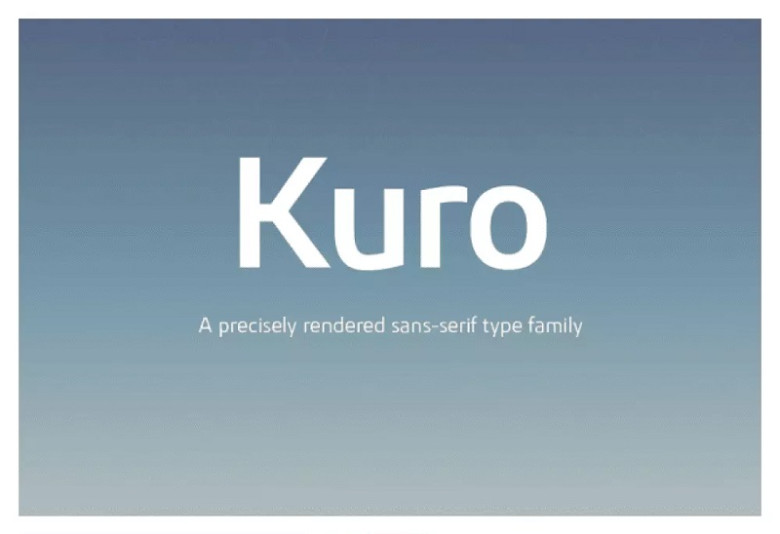
Kuro Font Family
Kuro is a precisely rendered sans serif type family. Modern geometric shapes combined with the addition of subtle detailing, make for an inclusive and straightforward design that can be used in a range of ways.
The lighter weights provide a contemporary feel to text, while the heavier weights give text distinction in brand identification, and packaging. Details accommodate eight weights, 450 characters, manually edited kerning and opentype features.